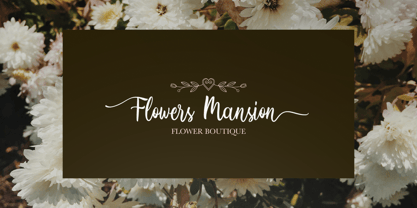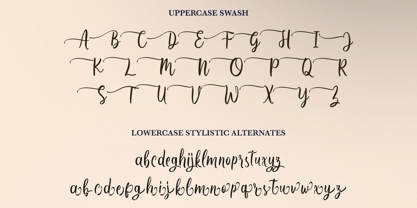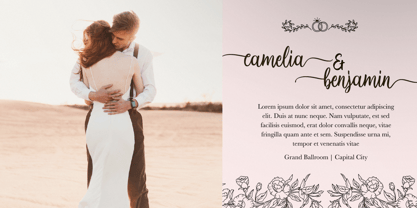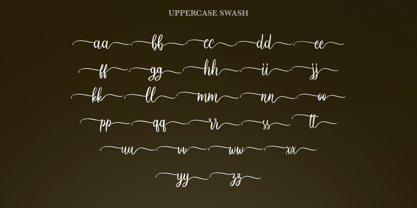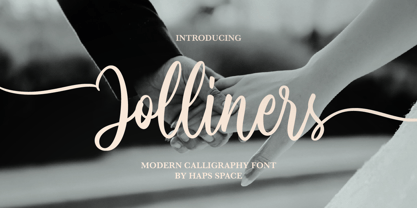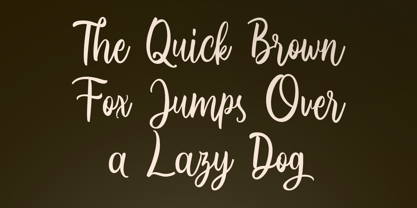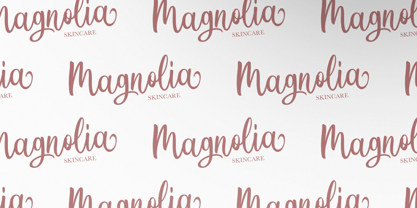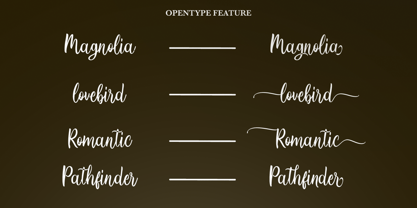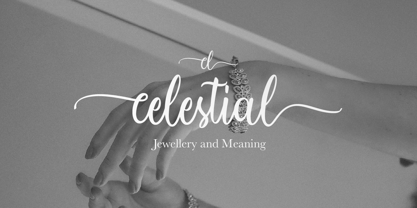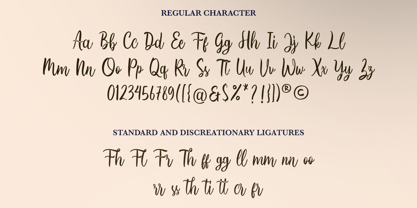
Jolliners Script
by Haps Space
The Jolliners Script Font Family was designed by Haris Purnama Putra, Egi Ahmad Mufid and published by Haps Space. Jolliners Script contains 1 styles. More about this family
Jolliners Modern Script is a Modern Calligraphy Font comes with alternatives and ligatures, helps to create stunning Posters, Branding, Tshirt, Social Media Graphics and much more.
Designers: Haris Purnama Putra, Egi Ahmad Mufid
Foundry: Haps Space